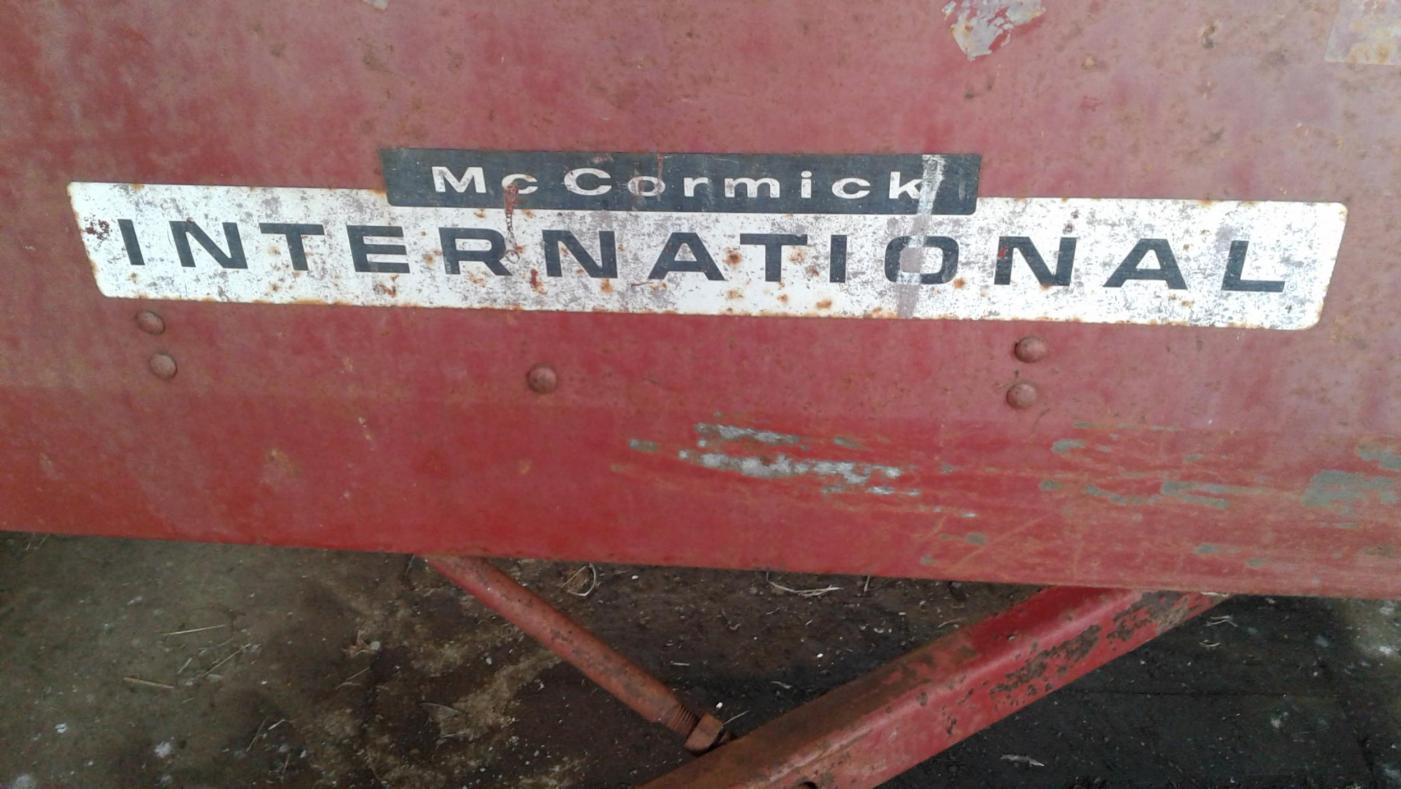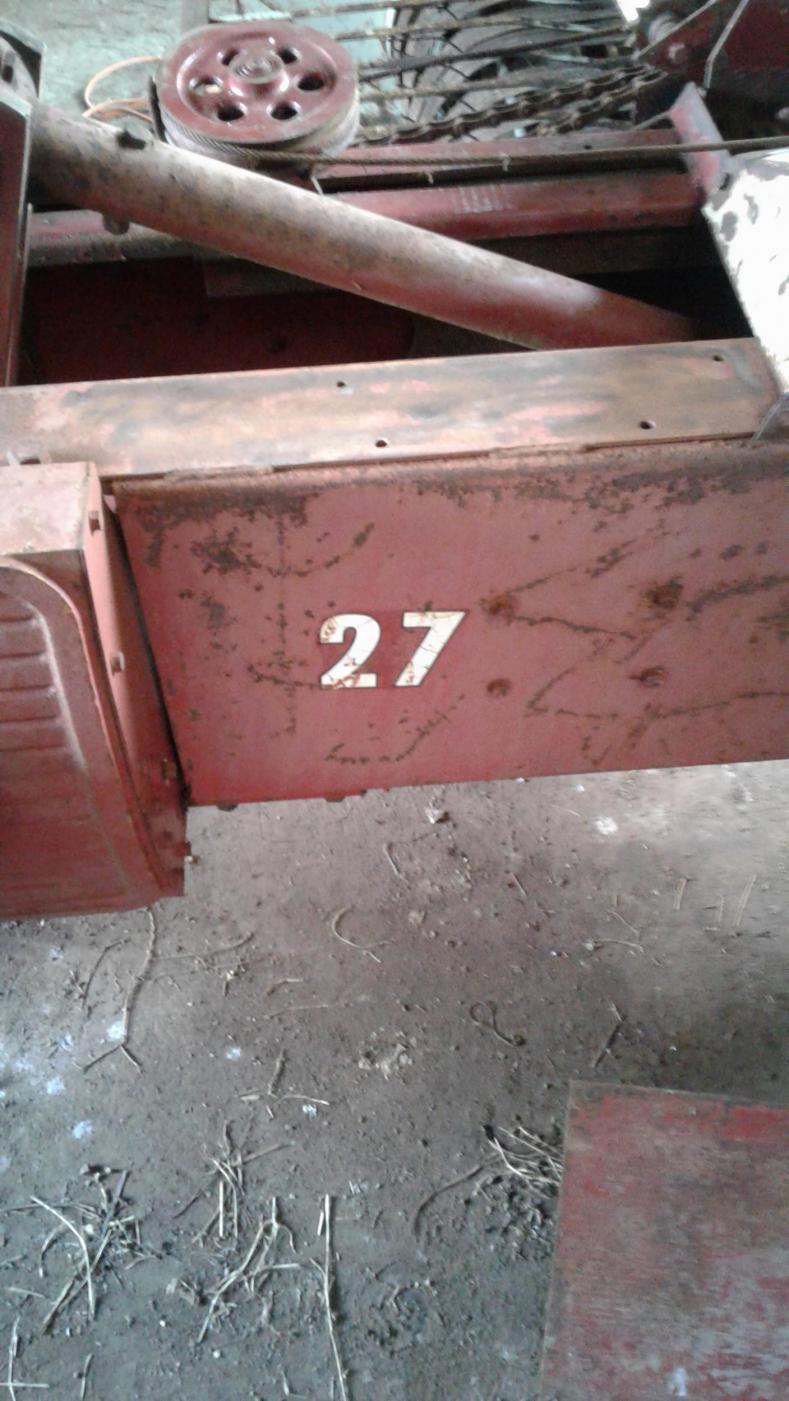
Vintage Tractor (Mc Cormick International)
Hi I'm looking at replacing the decals on a vintage tractor (baler) International Brand maybe 50s or 60s.
Here's a better image; proportions may be off a little but not much.
Just for info, it is NOT Eurostile or Microgramma type. It is sort of like a Microgramma Demibold but there isn't such a font that I know of. Given that McCormick came into being in the 19th century it likely is an older font.
It is not likely that either is a straight setting of a typeface—logotypes rarely were during that era (or even today).
For McCormick, Folio Bold Extended is very close (substitute a circular dot over the i), but I can’t find that width in a digital version of the typeface. Helvetica Extended Bold, with a bit more horizontal stretching and the same dot substitution, is a decent substitute.
As George already said, Eurostile or its predecessor, Microgramma, are very similar for INTERNATIONAL. Only the R would have to be altered to approximate your sample. Or you could use something like Idlewild Bold by Hoefler & Co.
For the 27, try AG Book Pro Bold Condensed.